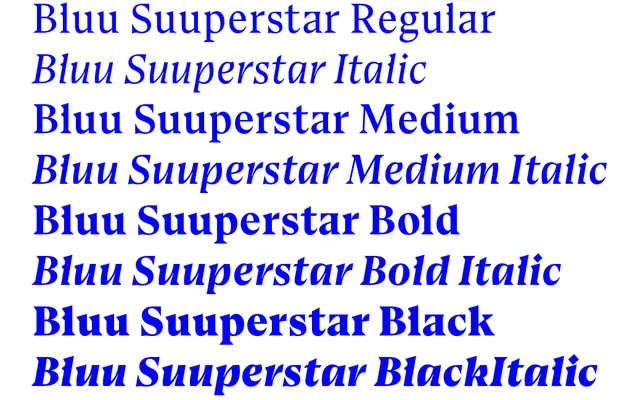
Bluu Suuperstar
Phantom Foundry · Jean-Baptiste Morizot
A redesign from scratch of Morizot's earlier open-source Bluu Next, with sharp triangular serifs and flat-topped letterforms that give conventionally round glyphs a hard, structural edge.
Originally released through Velvetyne as Bluu Next and picked up by rock bands, museums and fashion brands, the family has been rebuilt entirely by Jean-Baptiste Morizot following his time at Black Foundry. The defining feature is the straight top applied to letters that are normally curved, such as 'a', 'c' and 's', creating an angular tension unusual in serif type. This professional edition adds a true italic and multiple weights absent from the earlier open-source release.
Described explicitly as a display font with sharp triangular serifs and distinctive flat tops on normally curved letters; the dramatic, angular character places it firmly in the display category rather than a conventional text serif classification.